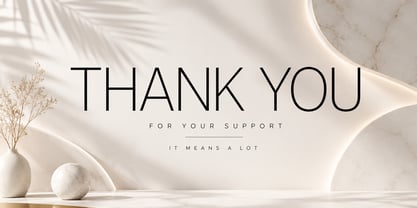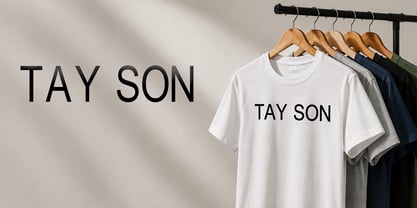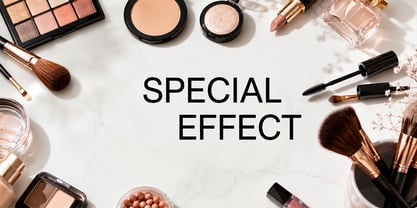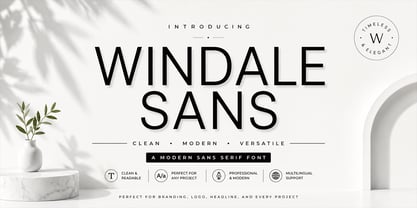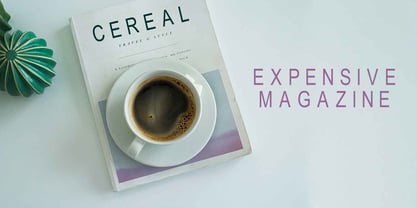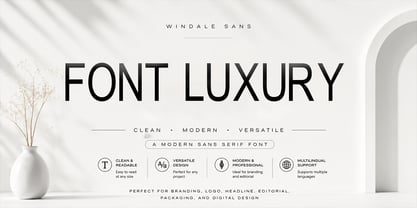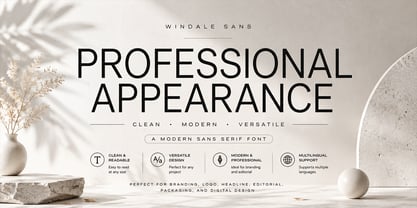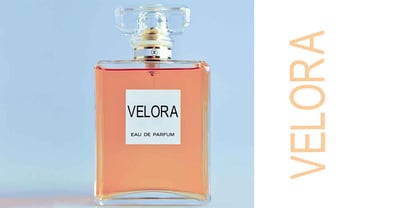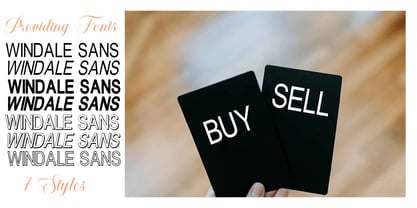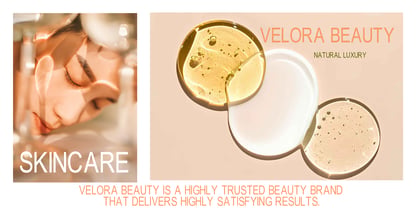
Windale Sans
The Windale Sans Font Family was designed by Teuku Saifullah and published by Shape Studio. Windale Sans contains 7 styles and family package options. More about this family
Windale Sans is a clean and modern sans serif font crafted for contemporary branding and professional design projects. Featuring balanced proportions, elegant letterforms, and excellent readability, this typeface delivers a sophisticated appearance while maintaining a minimalist aesthetic.
Its versatile design makes it suitable for logos, branding, headlines, editorial layouts, packaging, websites, social media graphics, and corporate identity systems. Whether you're building a luxury brand, a creative portfolio, or a modern business presentation, Windale Sans provides the perfect combination of clarity and style.
Designed with simplicity and functionality in mind, Windale Sans creates a timeless visual impression that works beautifully across both print and digital applications.